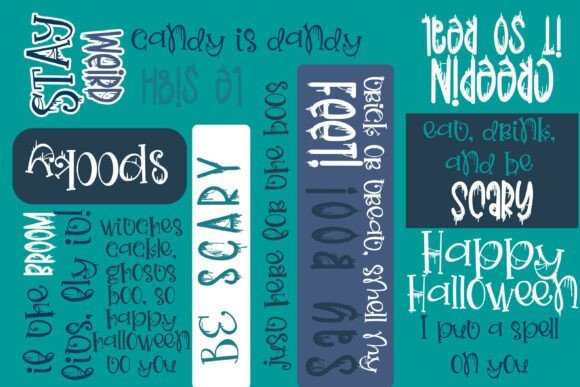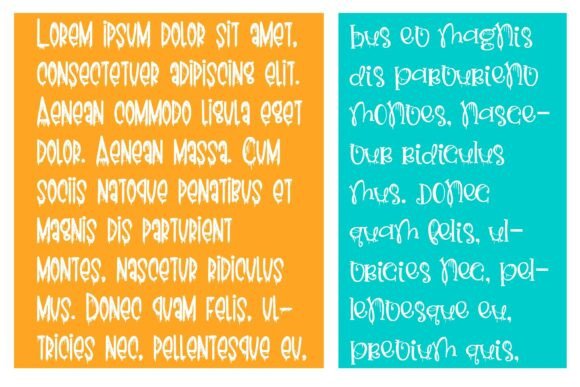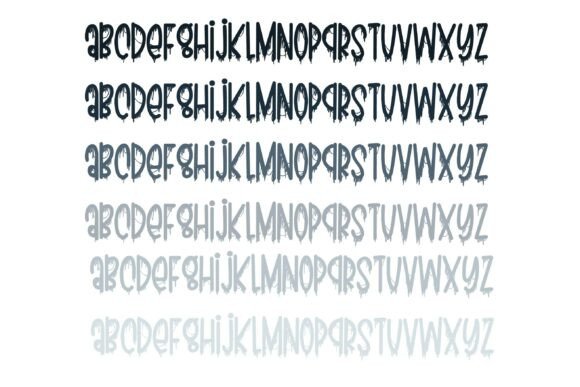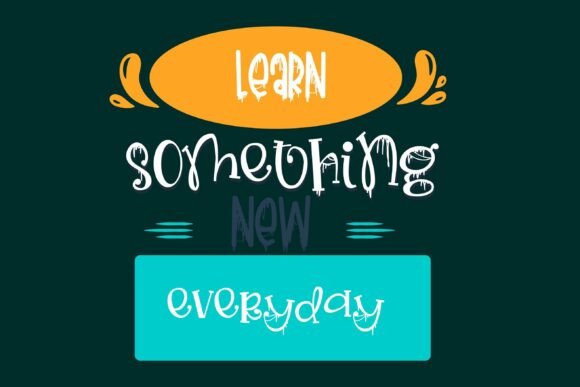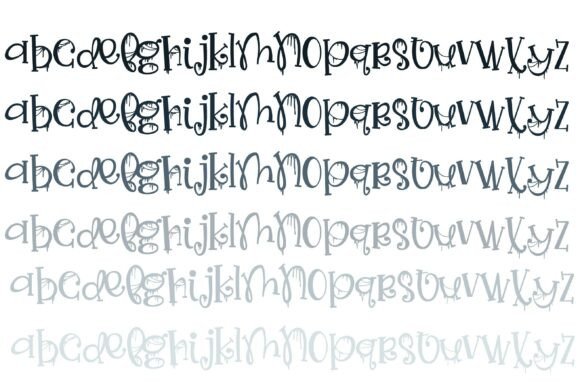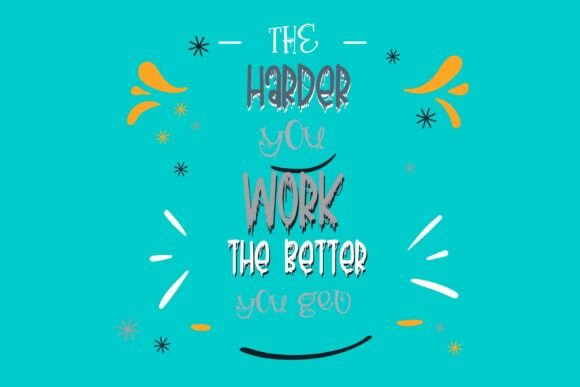
Ectoplasm Duo Font: The Ultimate Ghostly Typeface for Spooky Designs
Are you looking for a font that will add a touch of eerie charm and haunted fun to your Halloween creations? Look no further than the Ectoplasm Font Duo! This ghostly and whimsical typeface set is designed to bring a perfectly creepy-cute combo to your designs, making it ideal for haunted invites, party signage, trick-or-treat tags, or spooky merch.
What is Ectoplasm Font Duo?
The Ectoplasm Font Duo is a unique typeface set that consists of two distinct styles: Ectoplasm and Ectoplasm Play. This duo blends spooky drips with playful swirls, creating a hauntingly beautiful combination that is sure to captivate your audience. Whether you’re a designer, crafter, or simply someone who loves Halloween, this font pair is the go-to choice for ghoulishly good design!
Ectoplasm Font: The Spooky yet Elegant Choice
The Ectoplasm font is the more serious and eerie of the two styles. With its drippy, ghostly texture, it’s perfect for creating spooky and sophisticated designs. This font is ideal for:
• Haunted house invitations
• Spooky party signage
• Trick-or-treat tags
• Spooky merchandise
The Ectoplasm font is sure to add a touch of elegance and sophistication to your designs, while still conveying a sense of eeriness and spookiness.
Ectoplasm Play Font: The Playful and Whimsical Choice
The Ectoplasm Play font, on the other hand, is the more playful and whimsical of the two styles. With its swirly, curly texture, it’s perfect for creating fun and quirky designs. This font is ideal for:
• Halloween party invitations
• Spooky crafts
• Trick-or-treat bags
• Spooky kids’ designs
The Ectoplasm Play font is sure to add a touch of playfulness and whimsy to your designs, making it perfect for kids’ Halloween parties or spooky crafts.
Why Choose Ectoplasm Font Duo?
So, why choose the Ectoplasm Font Duo over other typeface sets? Here are just a few reasons:
• Unique and Versatile: The Ectoplasm Font Duo is a unique and versatile typeface set that can be used for a wide range of designs, from spooky and sophisticated to playful and whimsical.
• High-Quality: The Ectoplasm Font Duo is a high-quality typeface set that is designed to produce crisp and clear results, even at small sizes.
• Perfect for Designers and Crafters: Whether you’re a professional designer or a crafter, the Ectoplasm Font Duo is the perfect choice for anyone looking to add a touch of spooky charm to their designs.
How to Use Ectoplasm Font Duo
Using the Ectoplasm Font Duo is easy! Here are a few tips to get you started:
• Pair the Fonts: Pair the Ectoplasm and Ectoplasm Play fonts for a perfectly creepy-cute combo.
• Experiment with Colors: Experiment with different colors and textures to add depth and interest to your designs.
• Add Graphics: Add spooky graphics, such as bats, ghosts, or jack-o-lanterns, to enhance your designs.
• Have Fun: Most importantly, have fun and be creative!